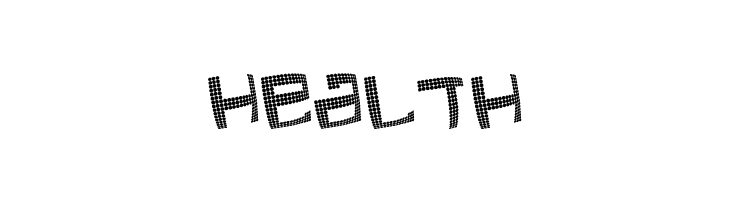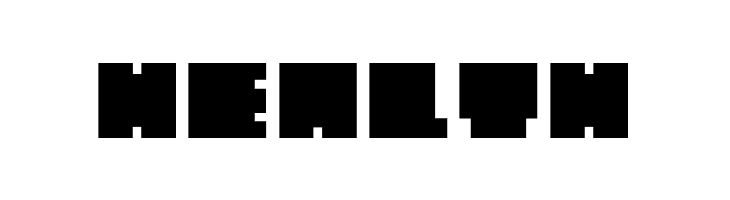
( Camilo Marquez )
A playful handwritten font with a casual and energetic style.
( Cecilia Rodríguez )
A pixelated, digital-inspired font with a modern, dynamic slant.
( Jonathan Vivanco - www.themanwhodesign.com )
A bold, geometric font with blocky, solid letterforms and sharp angles.
( Luc Mahler )
A tall, narrow font with high contrast and a blend of vintage and modern styles.
( Luc Mahler )
A modern, geometric font with a unique cut-out, stencil-like design.
( Luc Mahler )
A modern, italicized font with high contrast and sleek, elongated characters.
( Luc Mahler )
A modern, monospaced font with a sleek, minimalistic design.
( Luc Mahler )
A bold, italicized, and modern font with a sleek, condensed style.
( Luc Mahler )
A sleek, modern italic font with elongated, slightly condensed characters.
( Luc Mahler )
A sleek, modern font with elongated, narrow characters and minimal contrast.